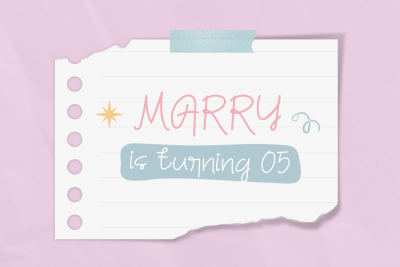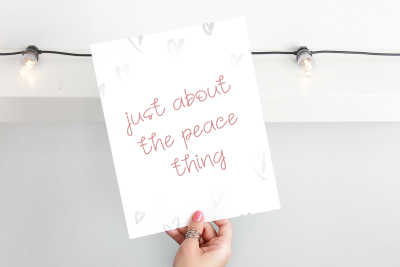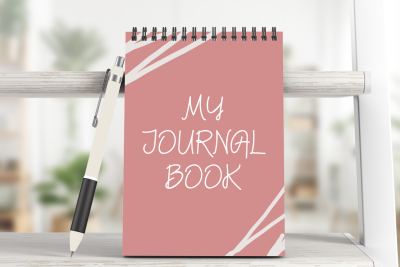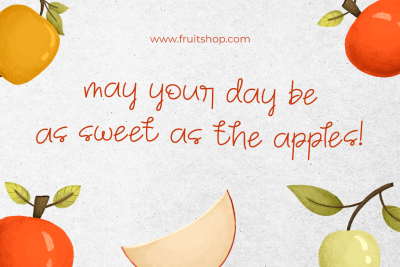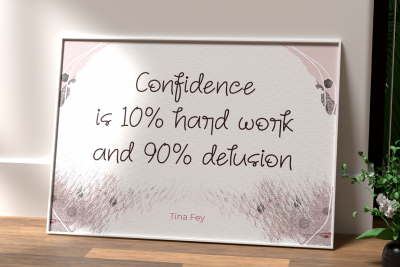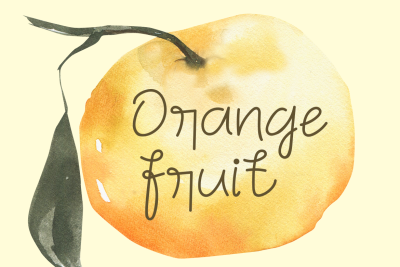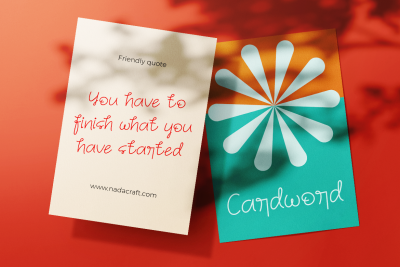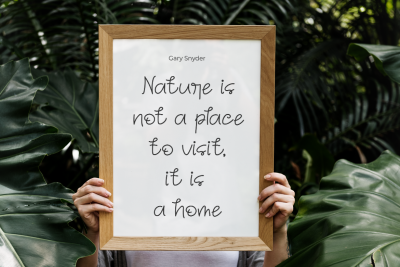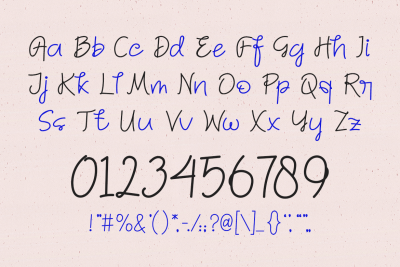
Handwriting Font FAUZIA is a delicate yet modern script typeface that blends elegance with simplicity. Moreover, it is designed with fluid, natural strokes, capturing the beauty of handwritten text while maintaining excellent legibility. Its smooth curves and balanced letterforms create a harmonious flow, making it a versatile choice for many creative projects.
Furthermore, Handwriting Font FAUZIA stands out by bringing warmth and personality to any design. The slightly irregular yet refined strokes mimic real handwriting, adding authenticity and charm. Whether you need a casual, friendly vibe or a sophisticated touch, FAUZIA adapts effortlessly to your needs.
With a contemporary appeal, FAUZIA pairs well with both modern and traditional designs. Additionally, the thoughtful letter spacing and natural stroke contrast ensure readability, whether in short headlines or longer text. This font is great for those adding a personal, artistic touch while keeping their work professional.
Beyond its visual appeal, FAUZIA also supports multiple languages, making it ideal for international projects. Moreover, it includes stylistic alternates and ligatures, allowing designers to customize typography. Whether for digital or print media, FAUZIA enhances any aesthetic with its handwritten charm.
Handwriting Font FAUZIA For?
Handwriting Font FAUZIA is ideal for designers, branding experts, and creative professionals who seek sophistication with an approachable style. Its handwritten look makes it perfect for:
- Graphic Designers: Great for branding, packaging, and promotional materials that need a personal yet stylish touch.
- Social Media Influencers: Additionally, it enhances Instagram posts, Pinterest graphics, and YouTube thumbnails with a warm, inviting feel.
- Small Business Owners: It enhances brand identity on product labels, business cards, and marketing materials, making a business feel more personal and relatable.
- Writers & Bloggers: Furthermore, it adds character to book covers, blog headers, and editorial layouts, making content engaging and visually appealing.
- Wedding & Event Planners: Ideal for wedding invitations, greeting cards, and personalized stationery with a handwritten charm.
- Educators & Course Creators: Moreover, it is suitable for worksheets, presentations, and learning materials, offering a friendly, inviting look.
- Artists & Creatives: A perfect choice for art prints, handmade crafts, and projects needing a delicate yet expressive typeface.
With versatility and natural charm, Handwriting Font FAUZIA is a must-have for those wanting an authentic, handwritten feel. Whether for branding, personal projects, or social media, FAUZIA ensures every word stands out beautifully with warmth and approachability.